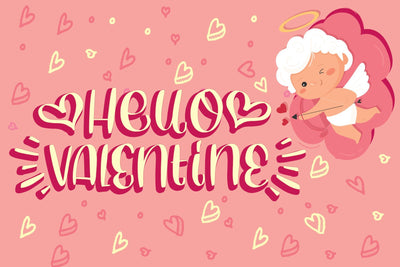
hello valentine
best uses for valentine, wedding, invitation, heading, cover, poster, logos, quotes, product packaging, header, merchandise, social media & greeting cards and many more